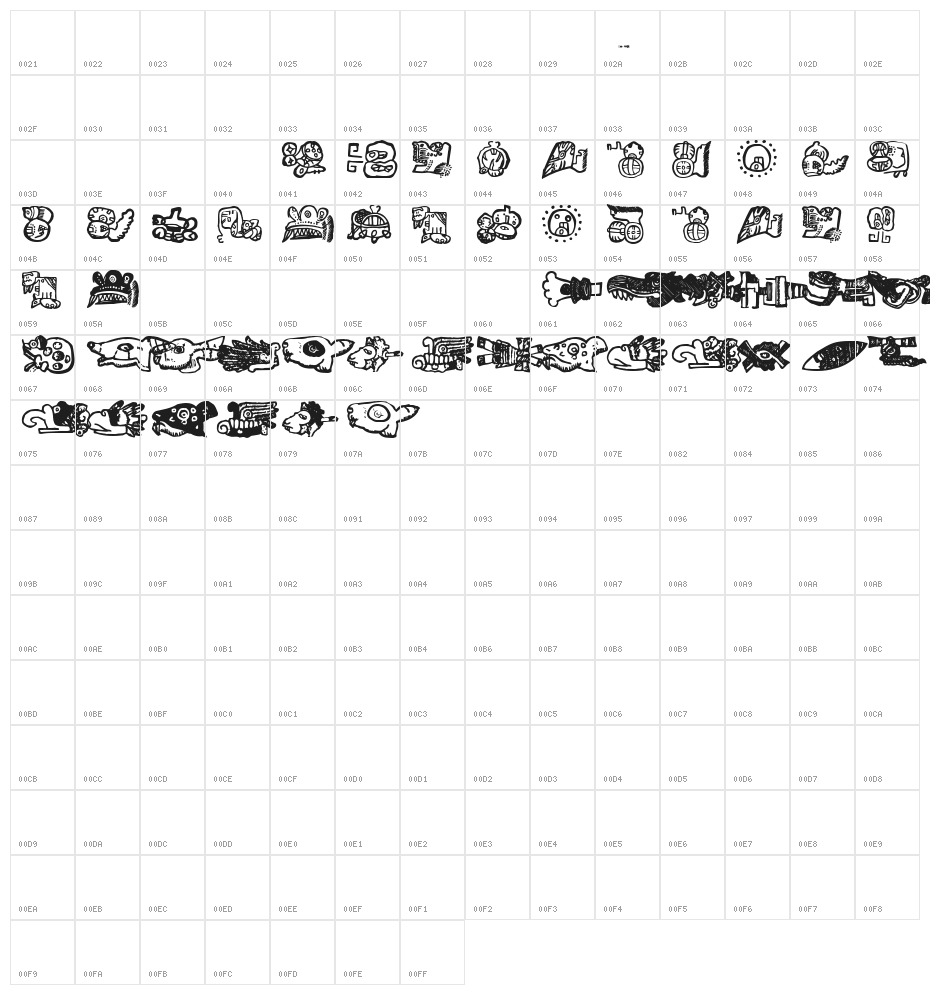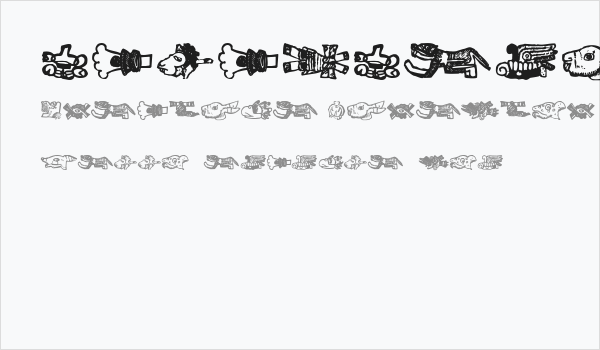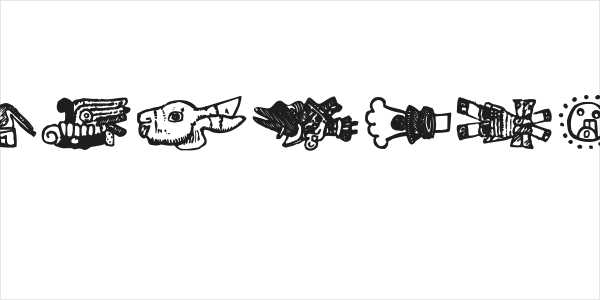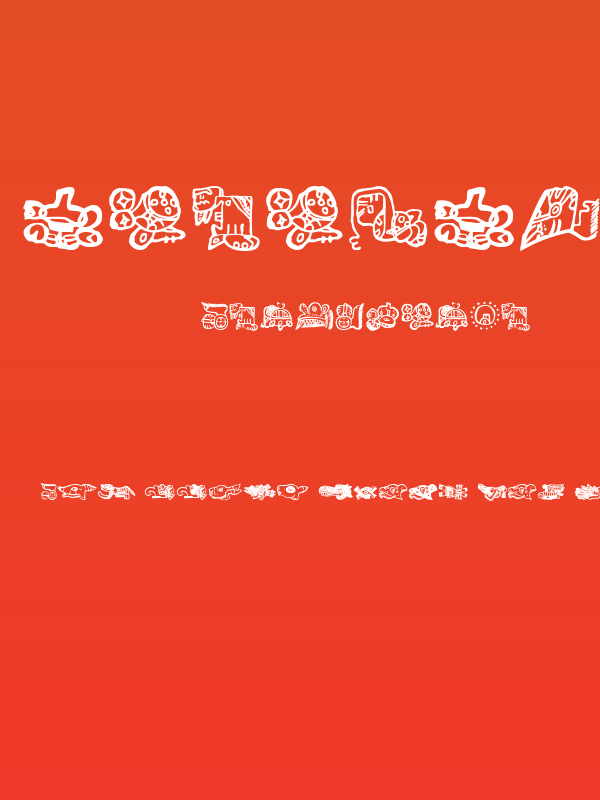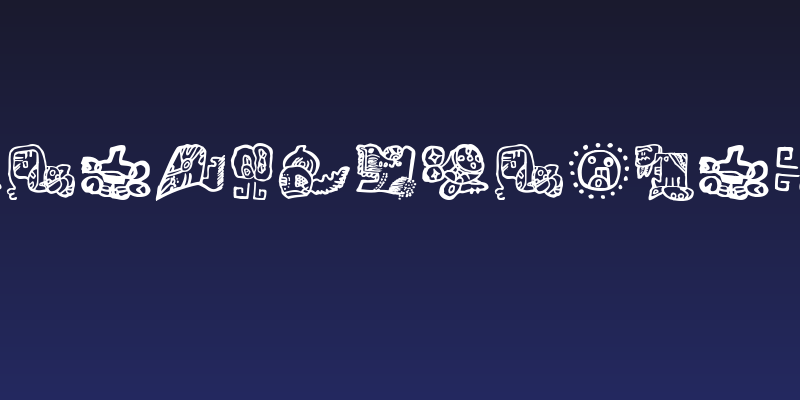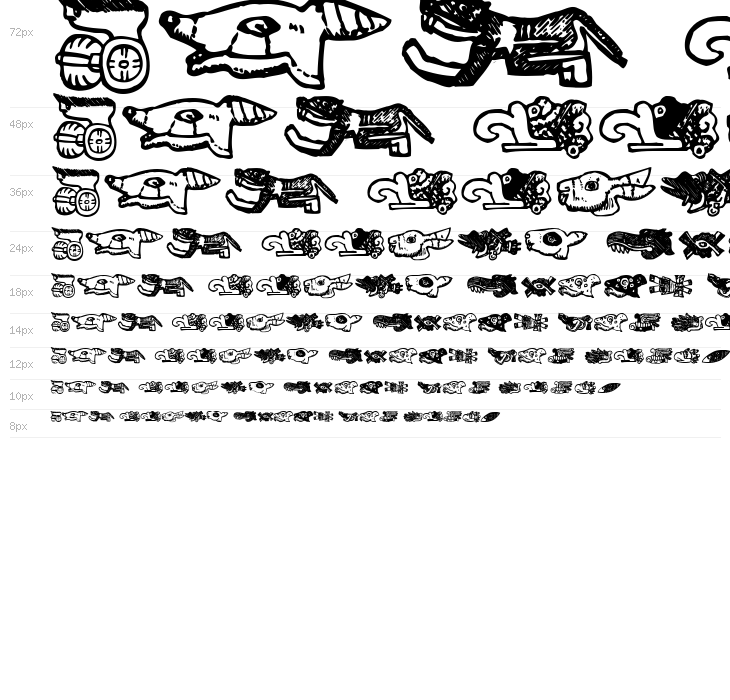
MayanMexicanSymbols Font
MayanMexicanSymbols Description
This set of symbols is inspired by ancient Mayan and Mexican iconography, featuring intricate and detailed designs that resemble historical glyphs and motifs. Each character is unique, with elaborate patterns and shapes that evoke a sense of mystery and cultural richness. The symbols are highly decorative, with a strong emphasis on artistic expression and historical significance. The designs are bold and complex, making them suitable for projects that require a touch of ancient or cultural aesthetics.
| Use Case | Logos, Artistic displays, Cultural projects |
| Proposed Projects | Ideal for cultural projects, historical documentaries, themed events, or artistic displays that seek to incorporate ancient aesthetics. |